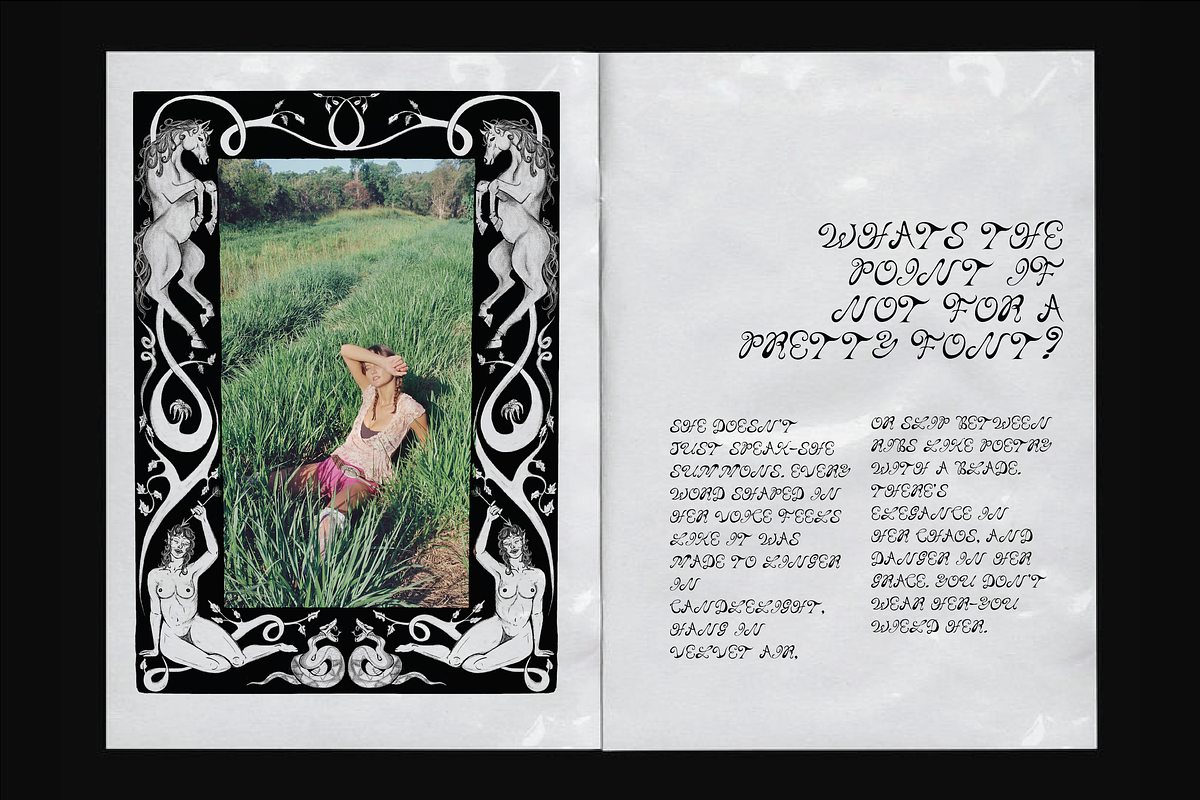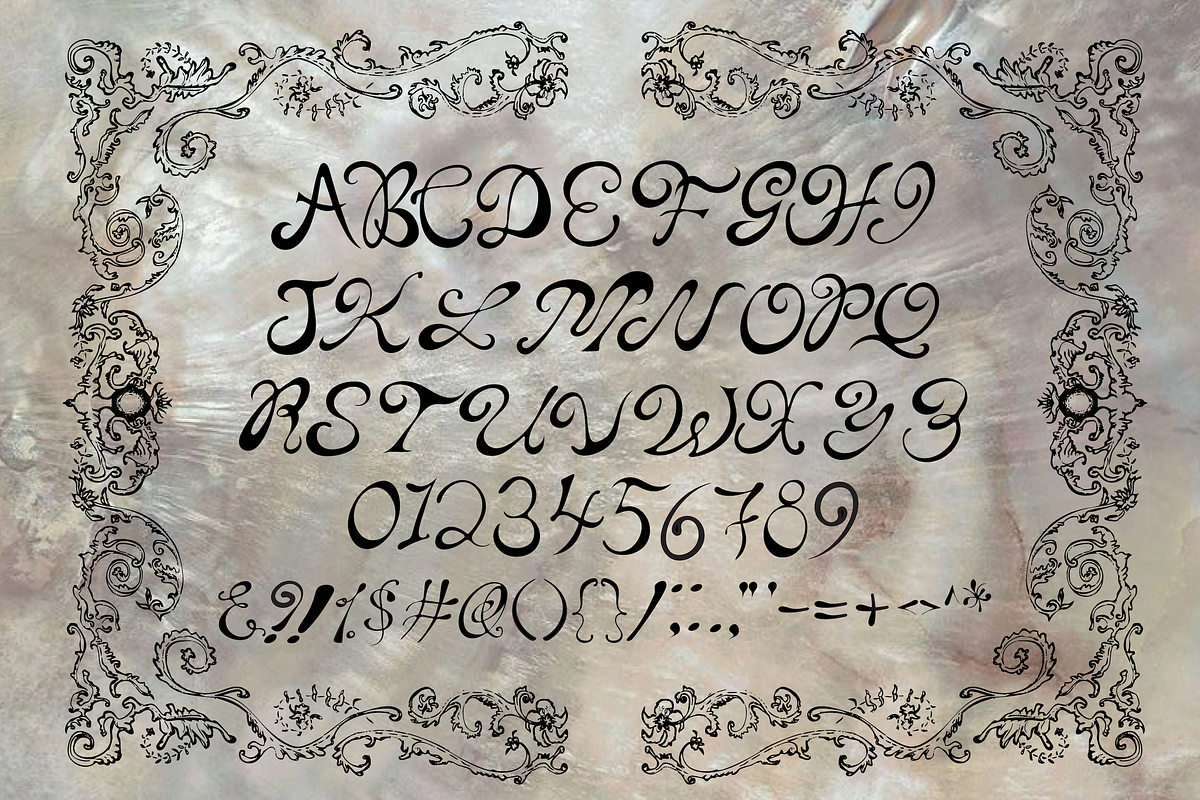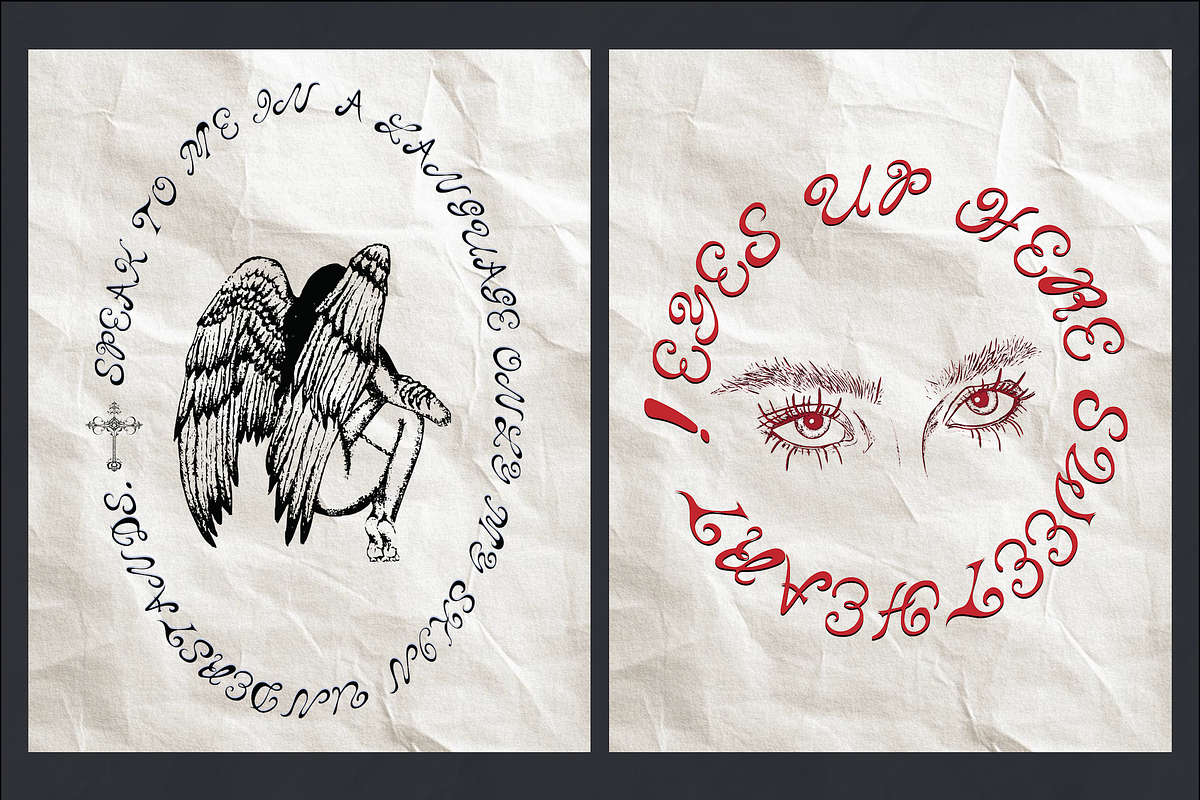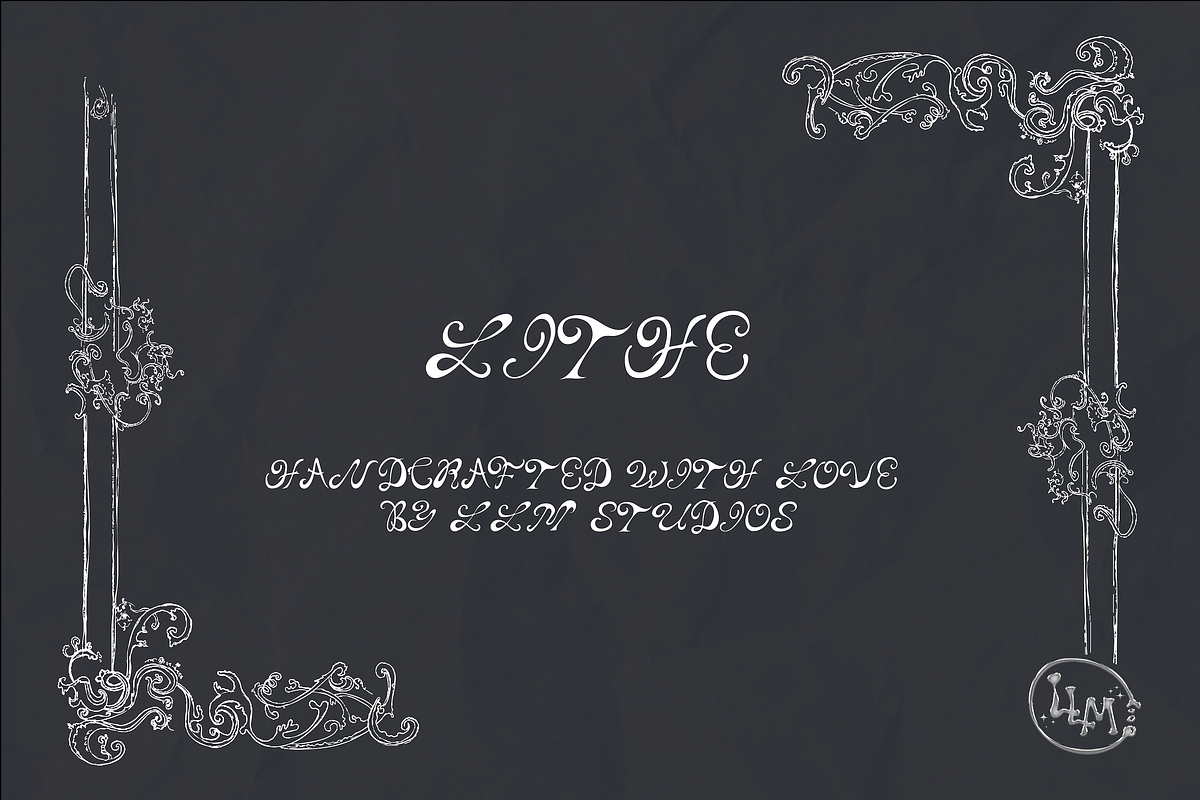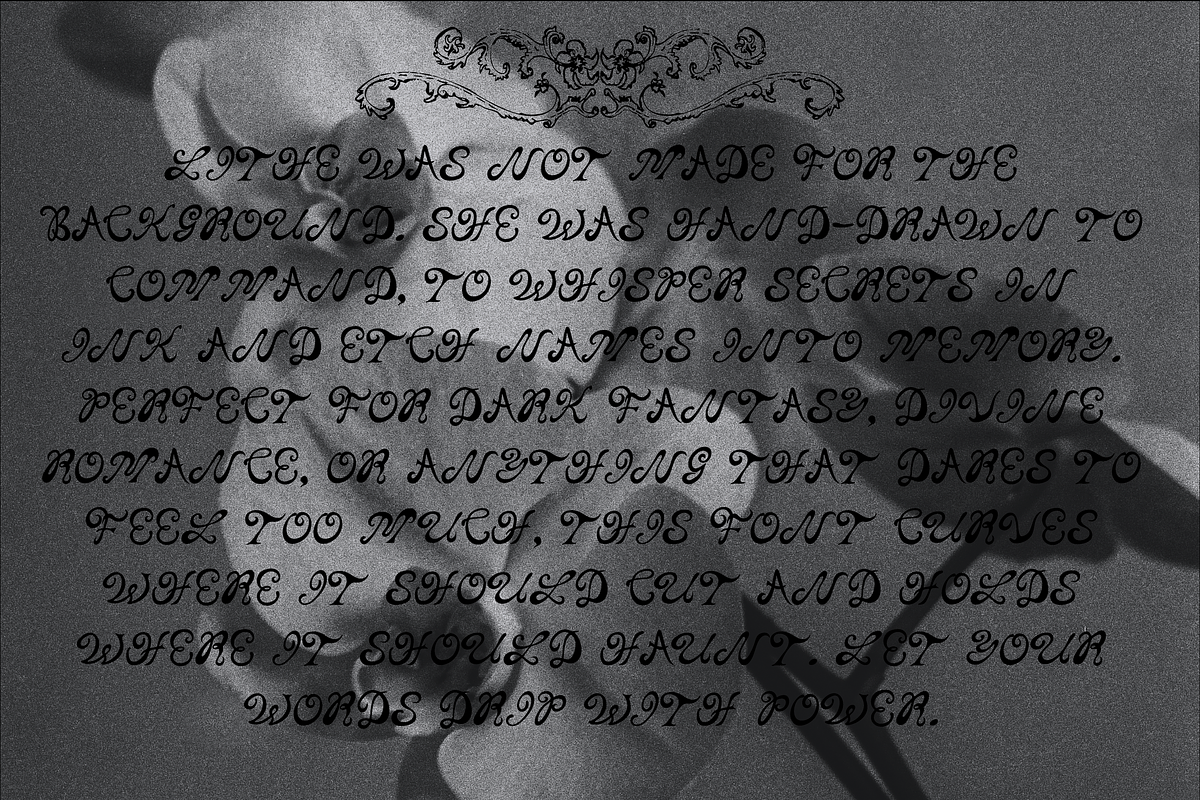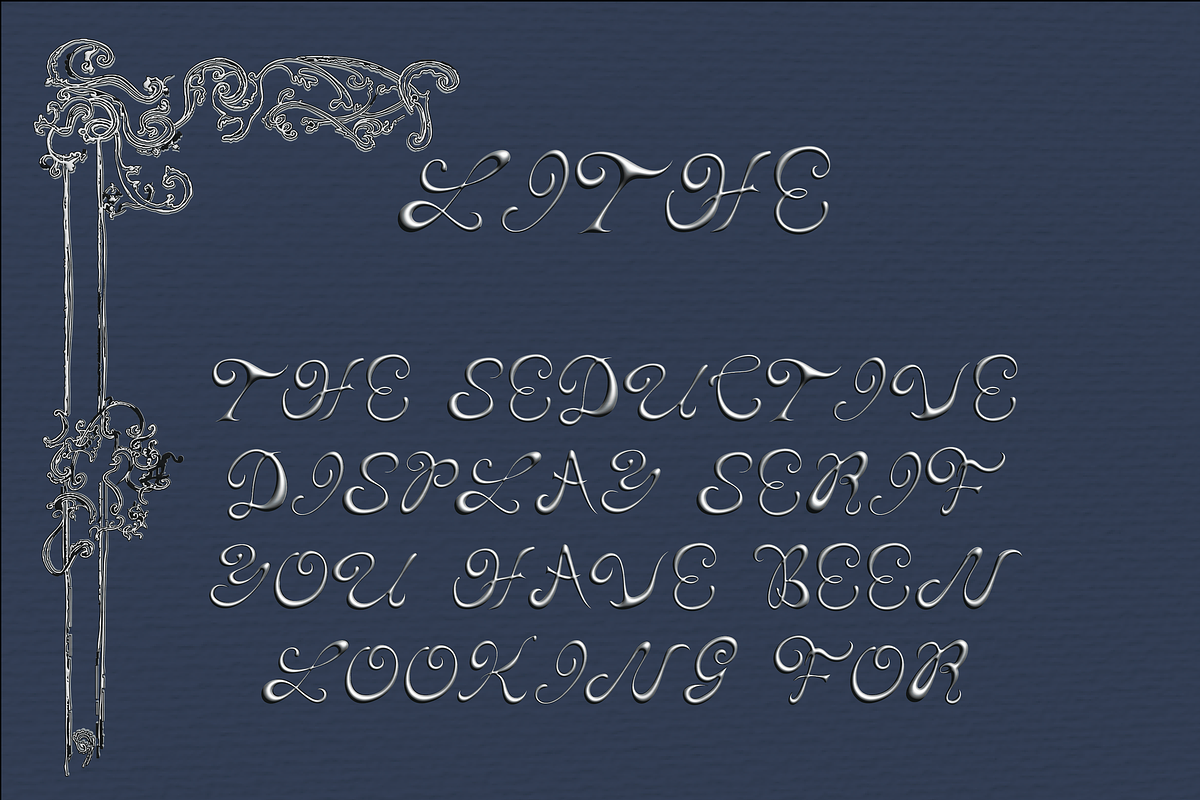
Lithe, A Handcrafted Display Serif
LITHE - A Delicately Ornate Display Serif
Lithe is a hand-drawn display font that flows with elegance and a touch of fantasy. Originally inked on paper with pen and intention, each letterform was carefully refined in Adobe Illustrator to preserve its fluid charm while perfecting the curves for digital use.
With its whimsical swirls and refined flair, Lithe is ideal for projects that call for character and ornamentation, think fantasy book covers, enchanted brand identities, artistic packaging, mystical invitations, or dreamy digital art.
Whether you're casting a spell on your next design or just adding a little flair, Lithe brings a handcrafted magic to your creative toolkit.